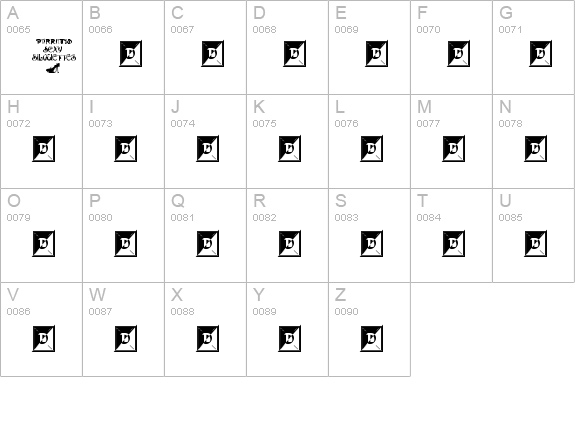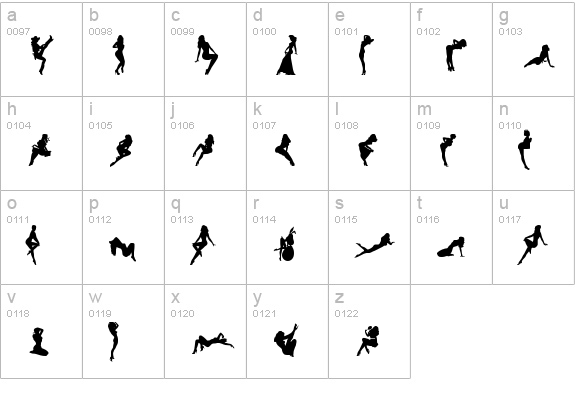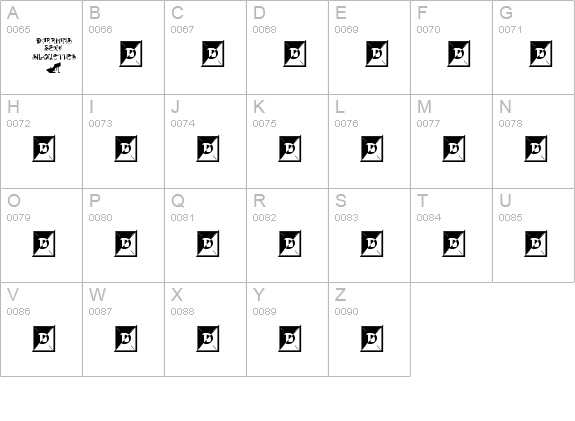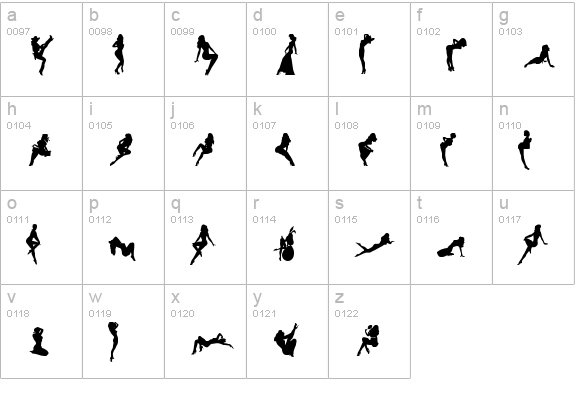
Darrians Sexy Silouettes Font Details
Darrians Sexy Silouettes font is a stunning display typeface that exudes elegance and sophistication. Its intricate and alluring silhouettes make it perfect for adding a touch of glamour to your designs. The fluid lines and curves of this font create a sense of movement and grace, making it a captivating choice for any project. What sets Darrians Sexy Silouettes font apart is that it is available for free download at FontsMarket.com. This means that you can easily enhance your designs with this beautiful font without any cost. Whether you're working on a branding project, a website design, or any other creative endeavor, Darrians Sexy Silouettes font is sure to make a statement and leave a lasting impression. Download Darrians Sexy Silouettes font for free today and elevate your designs with its irresistible charm and allure.